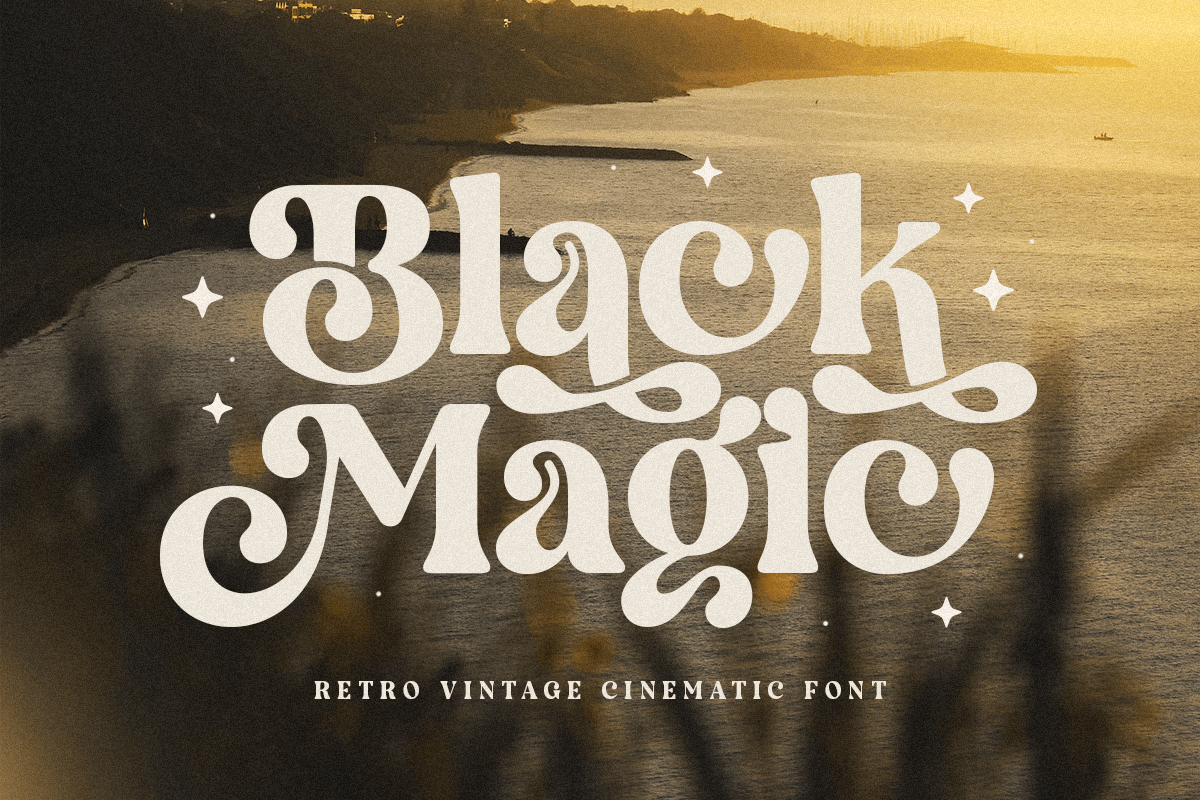
Black Magic
-Retro Vintage Cinematic FontBlack Magic is a bold retro vintage cinematic font designed to evoke a sense of nostalgia and timeless elegance. Inspired by classic film posters and vintage designs, this font brings a dramatic flair to any project, making it ideal for creating standout headlines, logos, or titles that leave a lasting impact. Its strong, bold letterforms command attention and exude a sense of power and authority.
The retro aesthetic of Black Magic gives a nod to the past while still being relevant for modern design projects. Whether you are working on film posters, retro branding, or vintage-themed event materials, this font provides the perfect blend of classic and contemporary appeal. Its versatile nature allows it to work beautifully across various media.
Use Black Magic to bring your design ideas to life, whether for cinema-themed projects, retro-inspired branding, or any creative endeavor where a touch of vintage drama is needed.